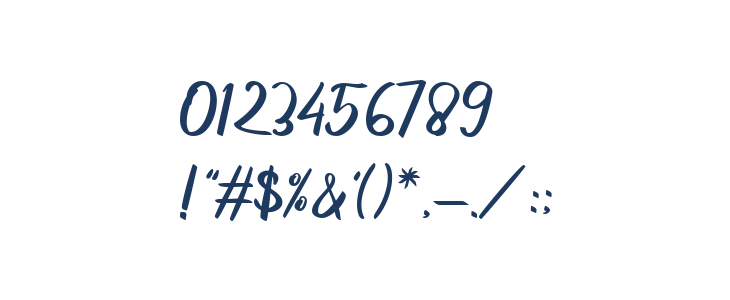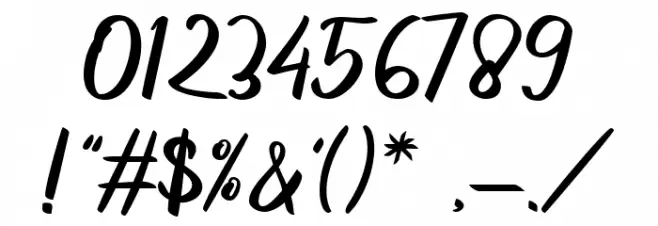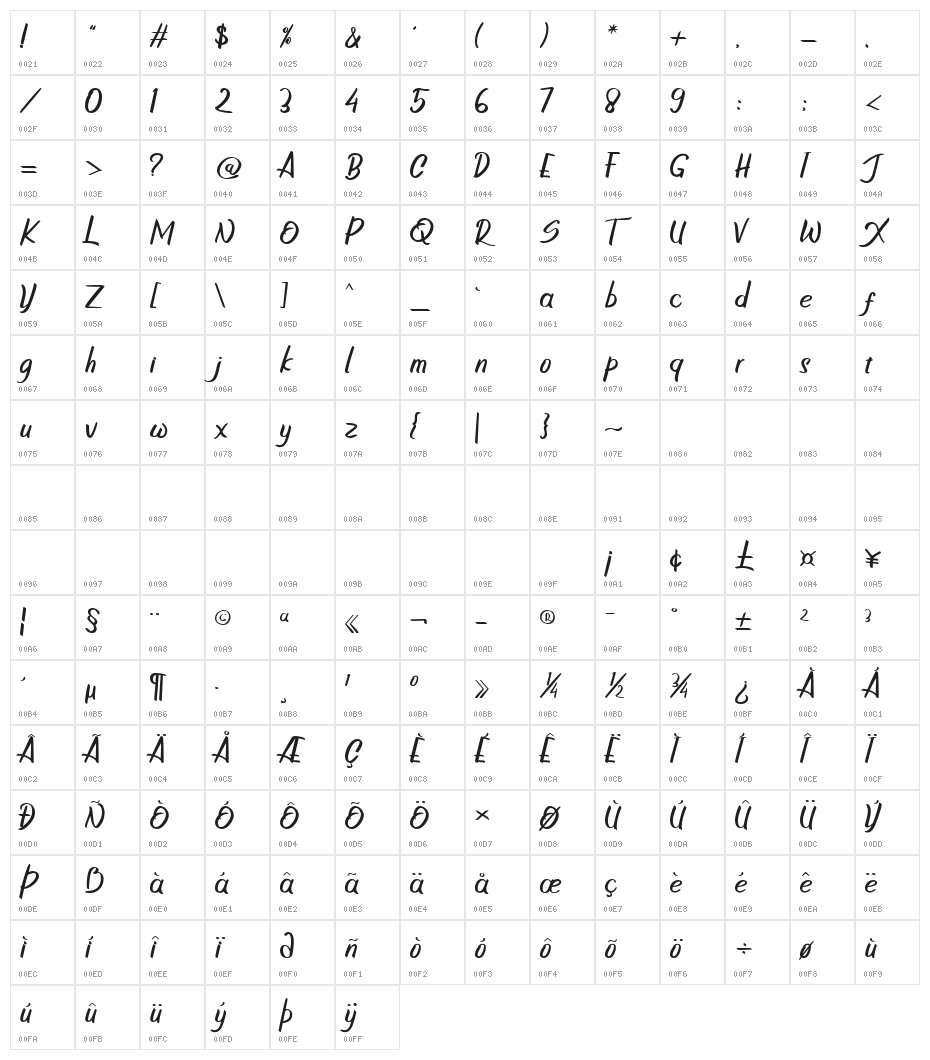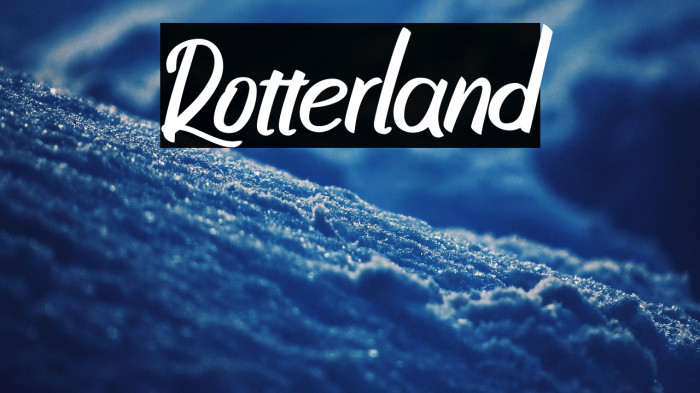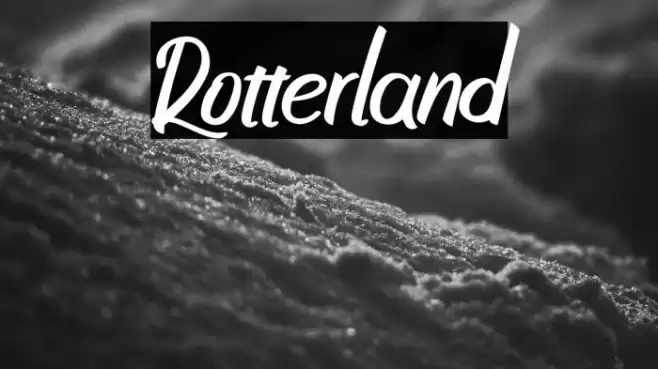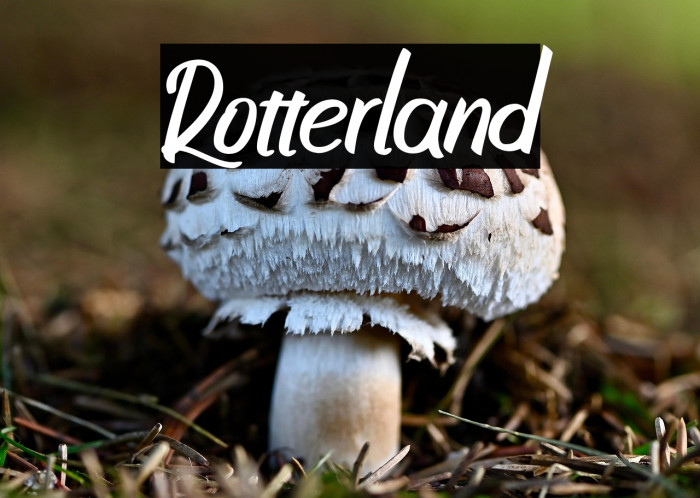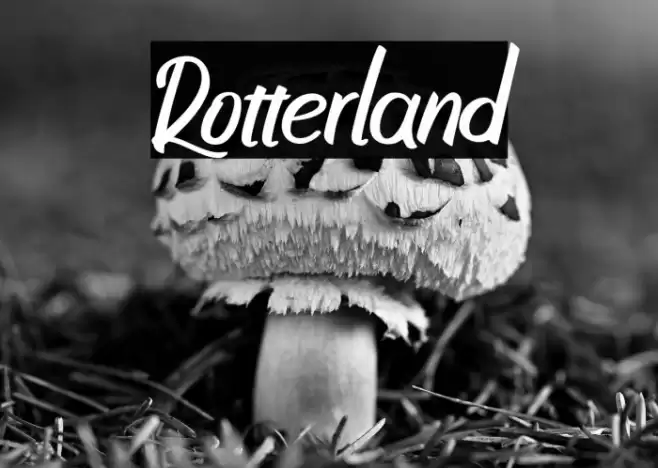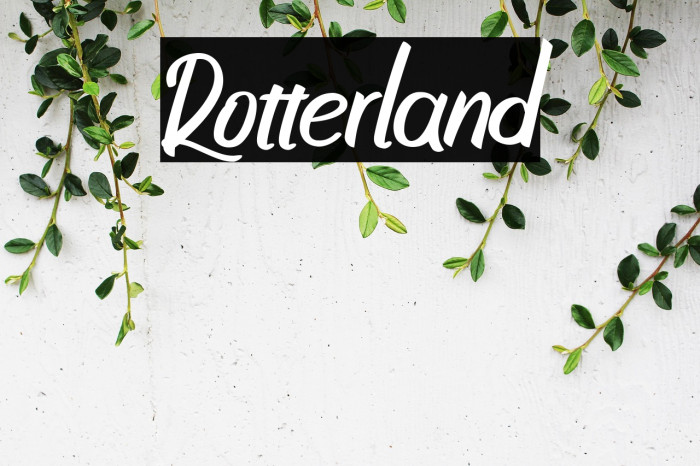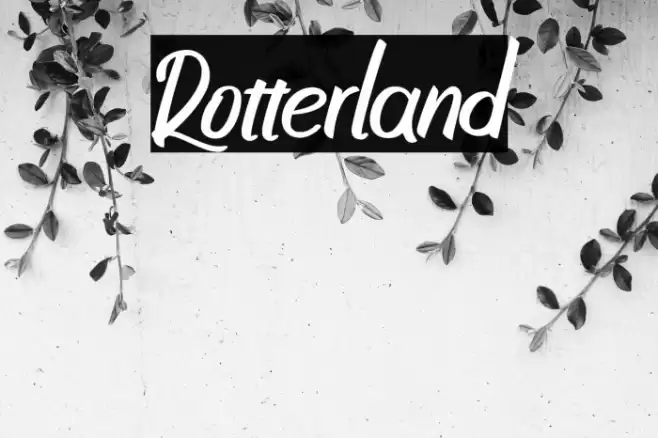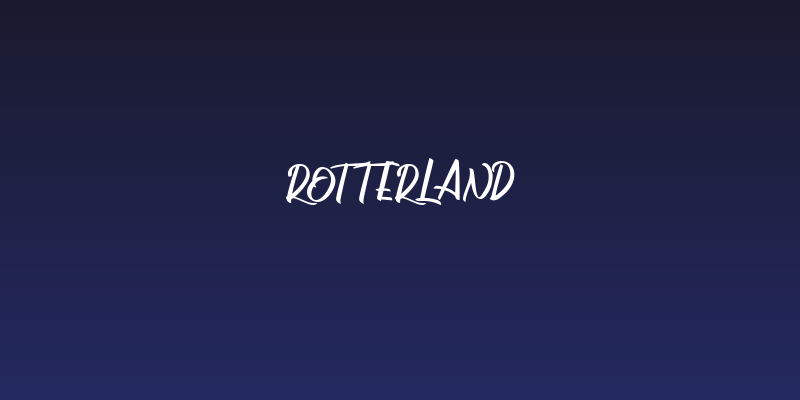
Rotterland Font
Rotterland Description
This font exudes a dynamic and lively character, with its bold and fluid strokes that mimic the natural flow of handwriting. The letters are slightly slanted, adding a sense of motion and energy. The uppercase letters are tall and commanding, while the lowercase letters maintain a consistent rhythm, enhancing readability. Numbers and special characters are crafted with the same playful yet sophisticated style, making them stand out. The overall appearance is both casual and elegant, suitable for a variety of creative applications.
| Proposed Projects | Ideal for branding, invitations, greeting cards, and creative posters. |